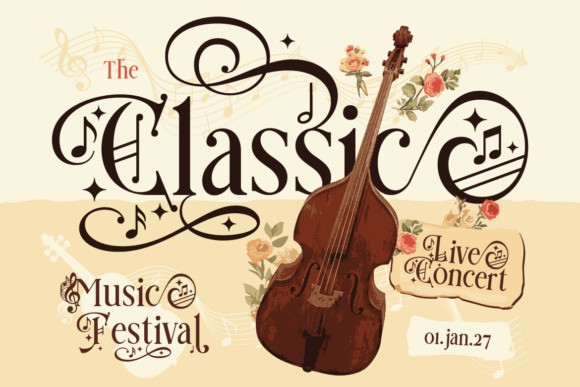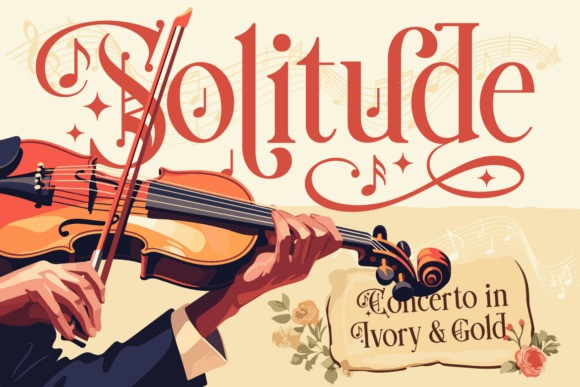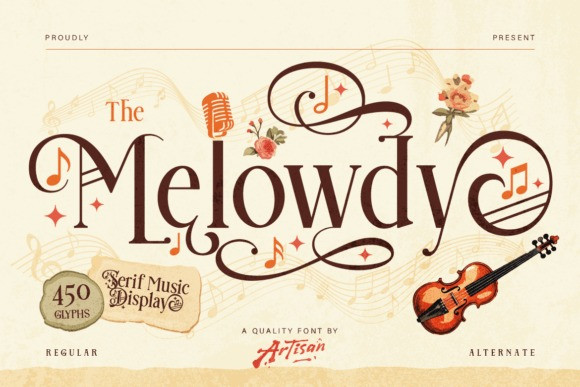
Melowdy Font
Melowdy Font – Designed with elegant curves and artistic swashes, Melowdy blends classic serif structure with decorative musical elements, making it perfect for designs that need both sophistication and personality. From subtle note accents to expressive alternates, every detail is created to bring rhythm into your typography.